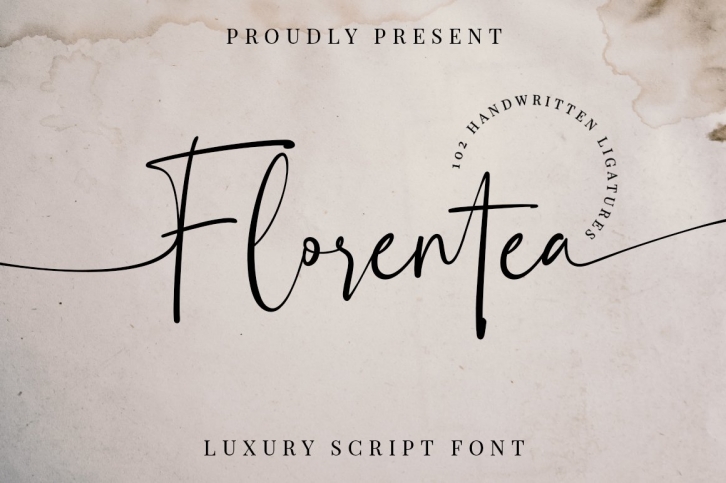
Florentea Luxury Signature is a trendy and unique font with an authentic style. It was designed by Typesthetic Studio and it's a great choice for creative people who need such a font. It was released on August 9, 2020 and the file size is 4.73 MB. Florentea Luxury Signature will add an organic vibe to any design idea!